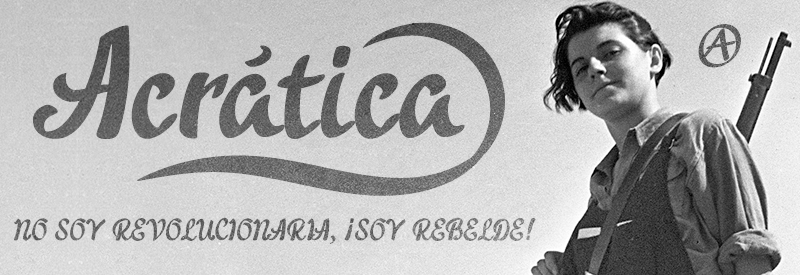
Preview and download Acratica Font. Created by deFharo in Script Various styles with Free for personal use license.
Acrática is a handwritten typography of calligraphic style and has several sets of ornaments and terminal swashes for decoration of phrases and titles, is dedicated to all libertarians of the world. Includes the Bitcoin symbol: b # ================================ Free for personal use only. Thanks for download. ================================ FULL VERSION & COMMERCIAL LICENSE: https://defharo.com/fonts/acratica-script/ |